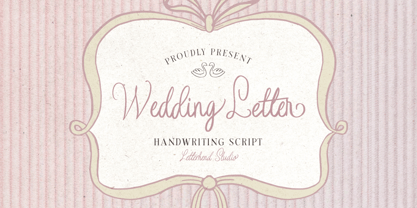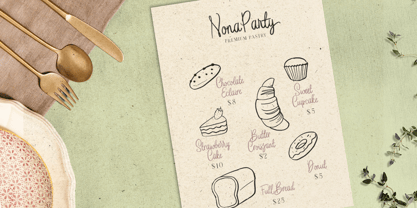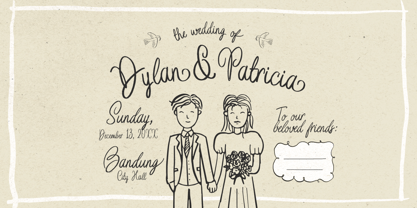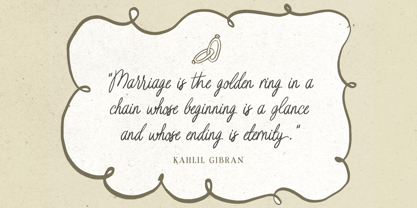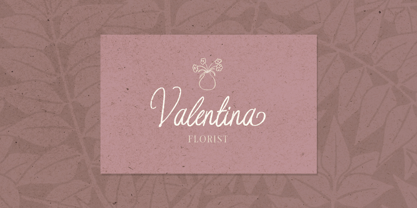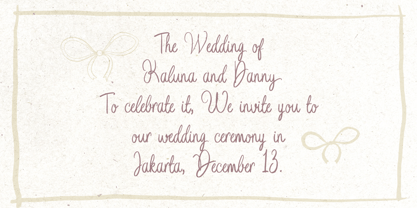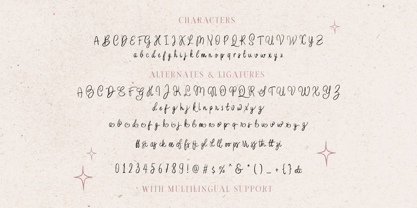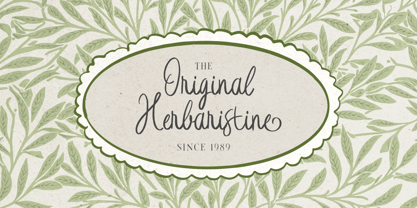
Wedding Letter
by Letterhend
The Wedding Letter Font Family was designed by Hendry Juanda and published by Letterhend. Wedding Letter contains 2 styles and family package options. More about this family
Wedding Letter is a beautifully crafted handwritten typeface with a touch of whimsy and elegance. Perfect for invitations, boutique packaging, romance novels, bakery logos, and any creative project needing a soft, luxurious aesthetic.
Features :
• Uppercase & lowercase
• Numbers and punctuation
• Alternates Character
• Multilingual support